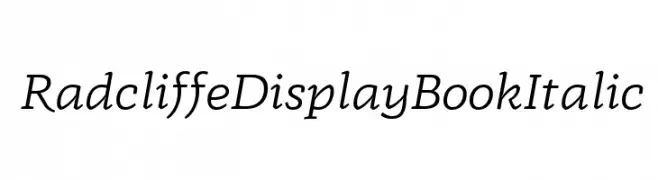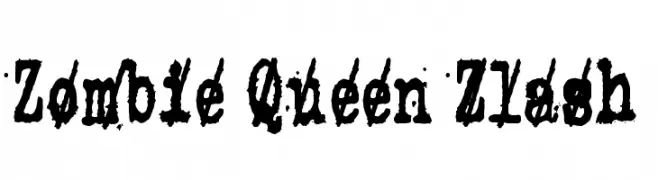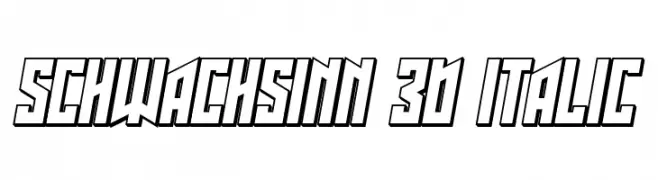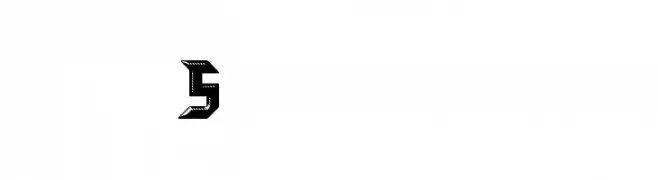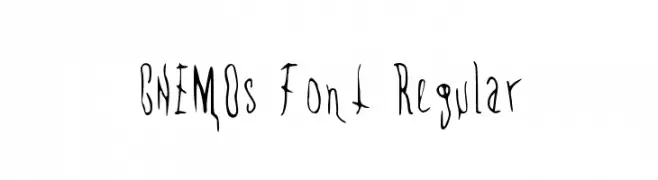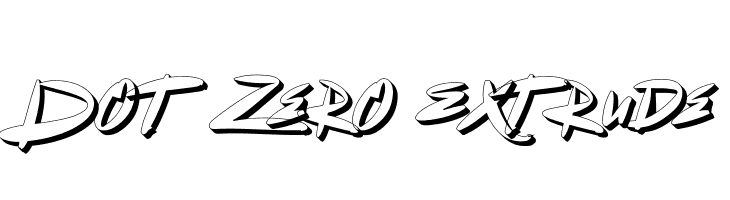
An elegant serif font with a classic italic style and refined serifs.
A bold, geometric font with a modern, artistic flair and unique cut-out patterns.
A distressed, grungy font with a horror-themed, hand-drawn appearance.
A playful, cat-themed doodle font with a whimsical and sketchy style.
A sleek, modern font with geometric lines and a futuristic style.
Bold, 3D italic font with sharp angles and a futuristic style.
A bold, flowing script font with dynamic, connected characters.
A bold, angular font with a futuristic and industrial design.
A bold, playful font with chunky, irregular shapes and high contrast.
A whimsical, hand-drawn font with irregular, wavy strokes and a playful style.